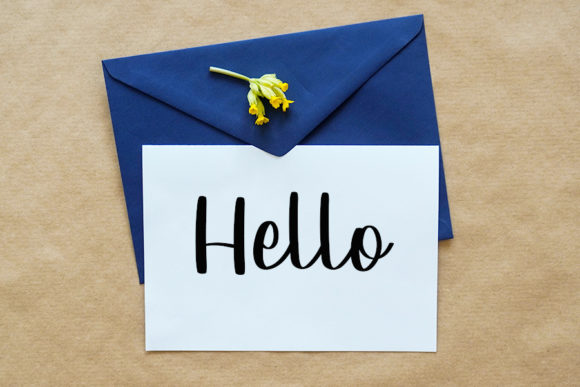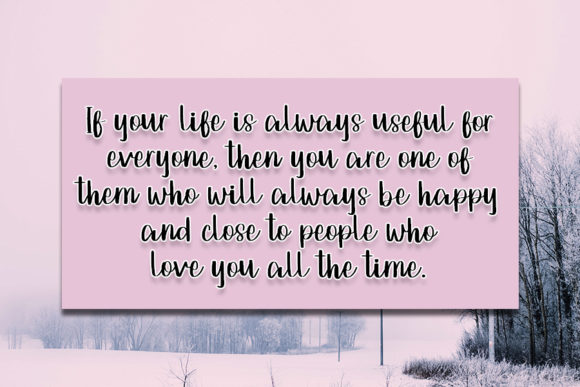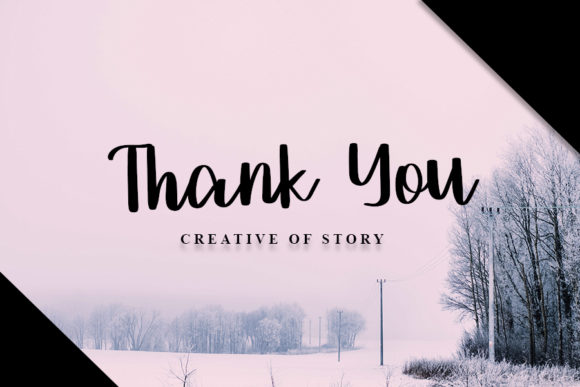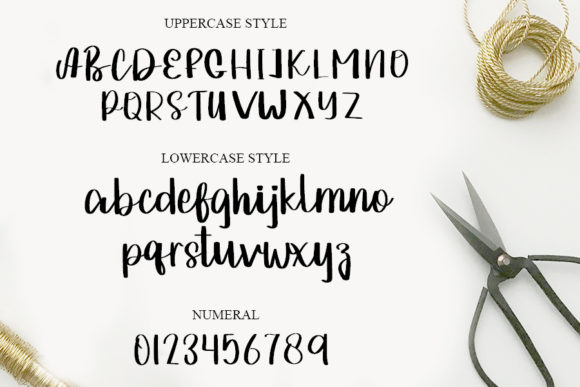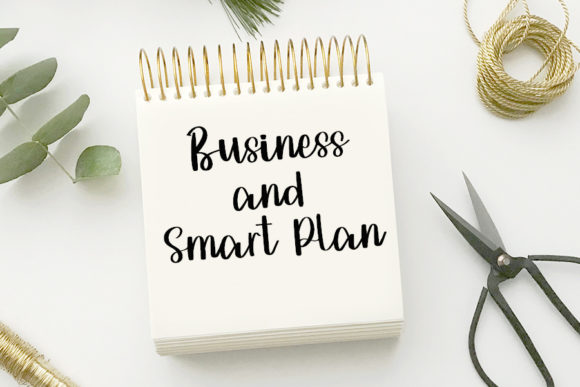
Introduction to Beautiful Signature Font
Have you ever been in a creative zone, surrounded by endless ideas and inspiration, only to be stopped dead in your tracks by the perfect font? For designers, finding that elusive perfect font can be a game-changer, elevating a project from good to great. For me, it was the discovery of the Beautiful Signature Font that sparked a newfound love for elegant and refined typography.
With its clean, thin, and smooth vibe, the Beautiful Signature Font is a high-quality design resource that adds a touch of sophistication to any creative project. Its delicate script style lends itself perfectly to designs that require a bit of whimsy and flair, making it an ideal choice for designers looking to create something truly special.
About the Beautiful Signature Font
Whether you’re working on a design project that requires a transparent background or need a stylish font for a free download, the Beautiful Signature Font is an excellent choice. Its versatility and timeless style make it a valuable addition to any designer’s toolkit, and we can’t wait to share its secrets with you.
Key Features of Beautiful Signature Font
- High-quality vector design, ideal for creative projects and professional use
- Transparent background, allowing for easy customization and layering
- Font size: scalable, resolution: 300 DPI, suitable for both digital and print media
- Unique, elegant design, perfect for creating beautiful signatures, logos, and branding elements
Honest Review: Beautiful Signature Font
I recently stumbled upon the Beautiful Signature Font and was impressed by its unique design. As a designer, I appreciate a good high quality font that can elevate a creative project. This font delivers.
- ✨ High quality design that stands out from the crowd.
- ✨ A transparent background, making it easy to use on any background.
- ⚠️ Limited character set, which may not be suitable for extensive use.
- ⚠️ Not ideal for body text, as it’s more suited for titles and headings.
Overall, I’m impressed with the Beautiful Signature Font. It’s a great design resource for anyone looking to add a touch of elegance to their creative project. While it may not be perfect, it’s a high quality font that’s worth considering.
Use a transparent background to create a high-quality and professional-looking design. Experiment with different font sizes and styles to add depth and creativity to your project. With the Beautiful Signature Font, the possibilities are endless!
The Beautiful Signature Font is perfect for any creative project that requires a touch of elegance and sophistication. Use it for business cards, letterheads, or any other design that requires a high-quality and unique font.